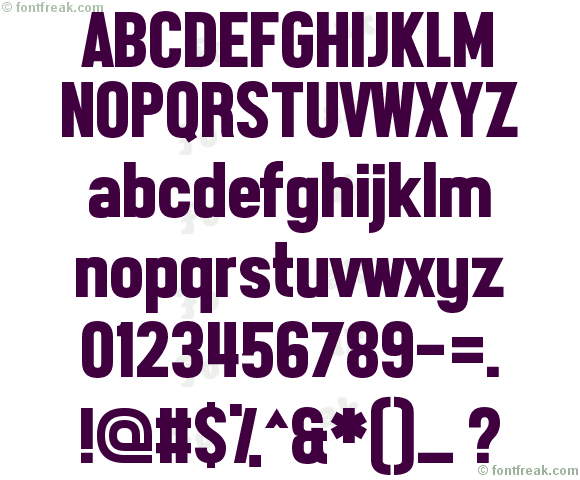
Front Page Neue
Front Page Neue, designed by Andrew McCluskey, is a striking sans-serif typeface that expertly combines modern aesthetics with functional versatility. This font is characterized by its clean lines, strong geometric shapes, and balanced stroke weight, making it a compelling choice for various design applications. The minimal contrast between thick and thin strokes enhances readability, while the ample spacing between characters adds to its contemporary appeal.
One of the standout features of Front Page Neue is its ability to adapt to different contexts. It is particularly well-suited for use in magazine layouts, where its bold presence can draw attention to headlines and articles alike. Additionally, the font shines in branding projects, making it an excellent choice for logos, product packaging, and promotional materials. Its modern design can elevate restaurant menus, giving them a fresh and inviting look that attracts customers. Furthermore, this typeface is ideal for digital content, such as websites and social media graphics, where clarity and visual impact are essential.
Targeting graphic designers, small business owners, and content creators, Front Page Neue offers a free and accessible option for those looking to enhance their projects without compromising on quality. Its versatility and contemporary style cater to a broad audience, making it a valuable addition to any designer's toolkit.
What sets Front Page Neue apart is its unique blend of simplicity and sophistication. This font not only captures attention but also maintains a sense of professionalism that is difficult to achieve with other typefaces. For those seeking to make a statement while ensuring readability, the Front Page Neue font free download is a must-have resource that can elevate any design project.